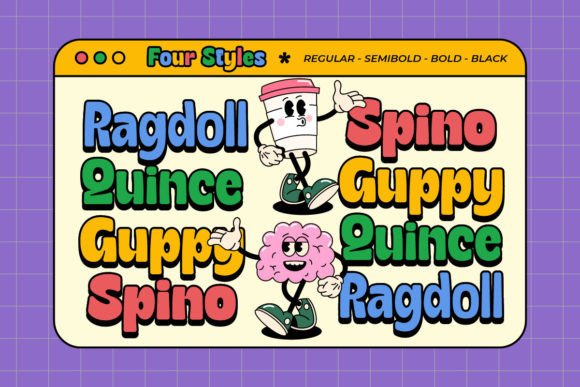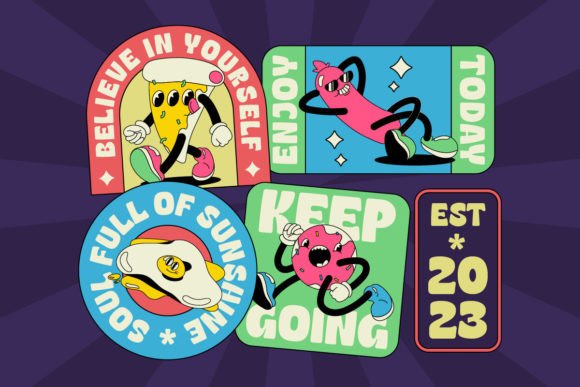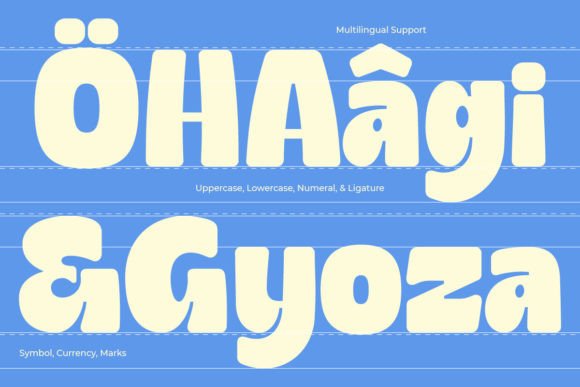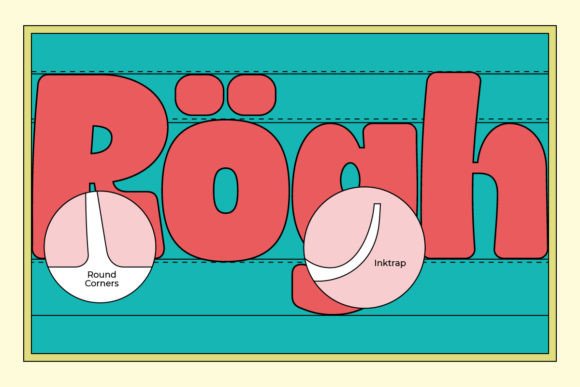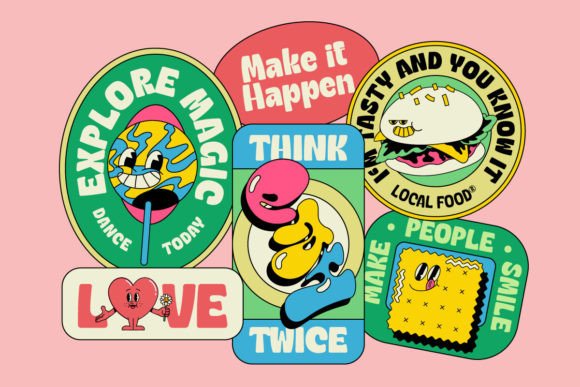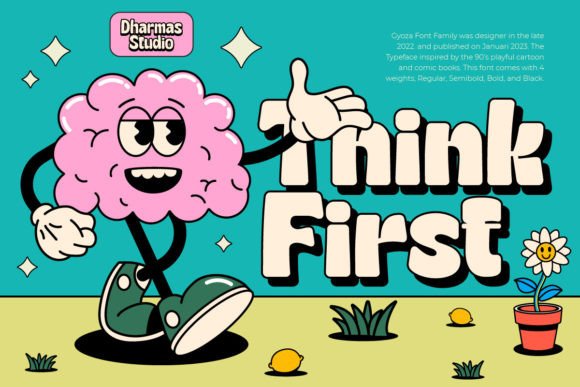
Introduction to Gyoza Font
Gyoza – was designed in late 2022 and published on January 2023.
The Typeface was inspired by the 90’s playful cartoons and comic books Gyoza – available with the variable fonts in weights and the Ink Trap.
Key Features of Gyoza Font